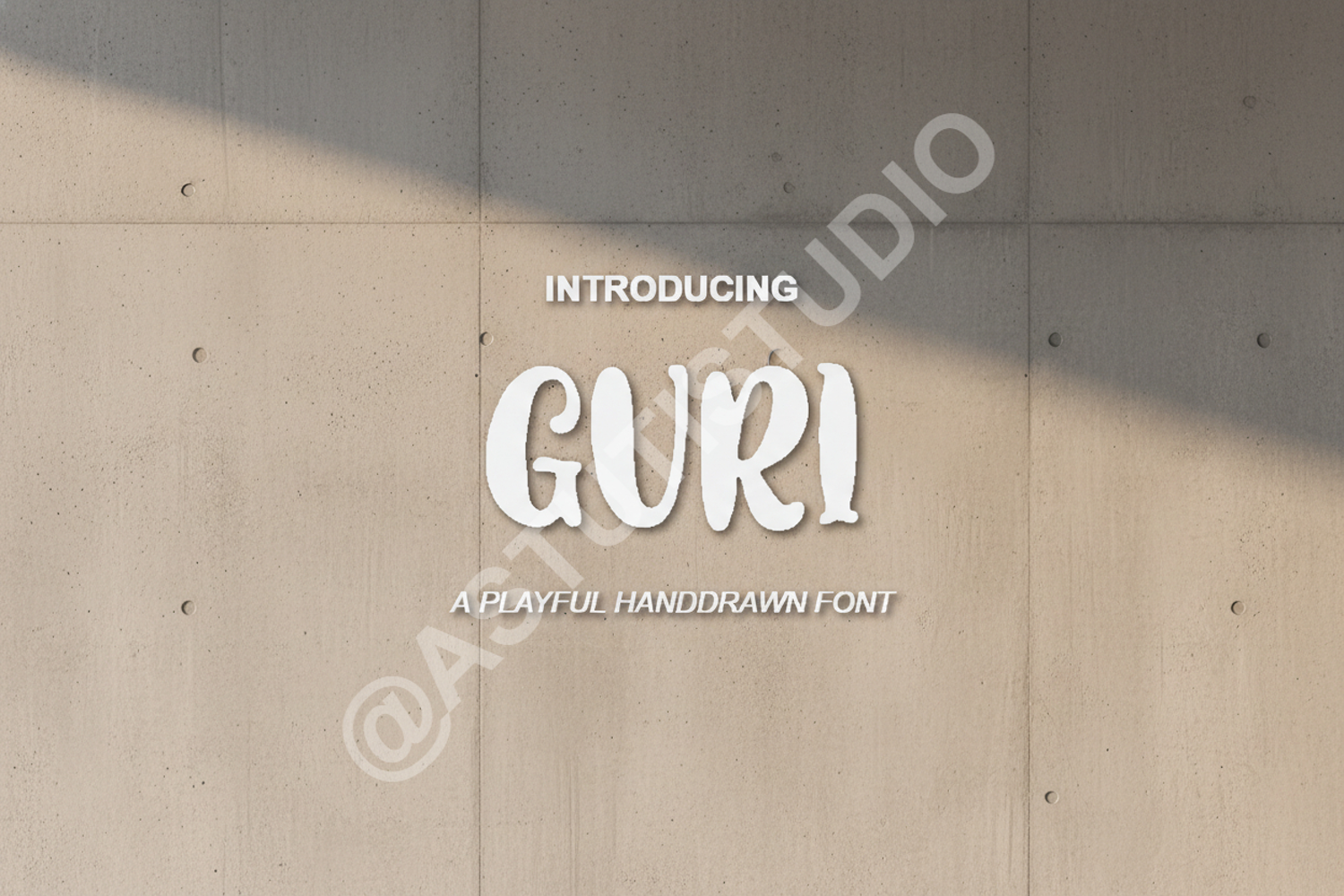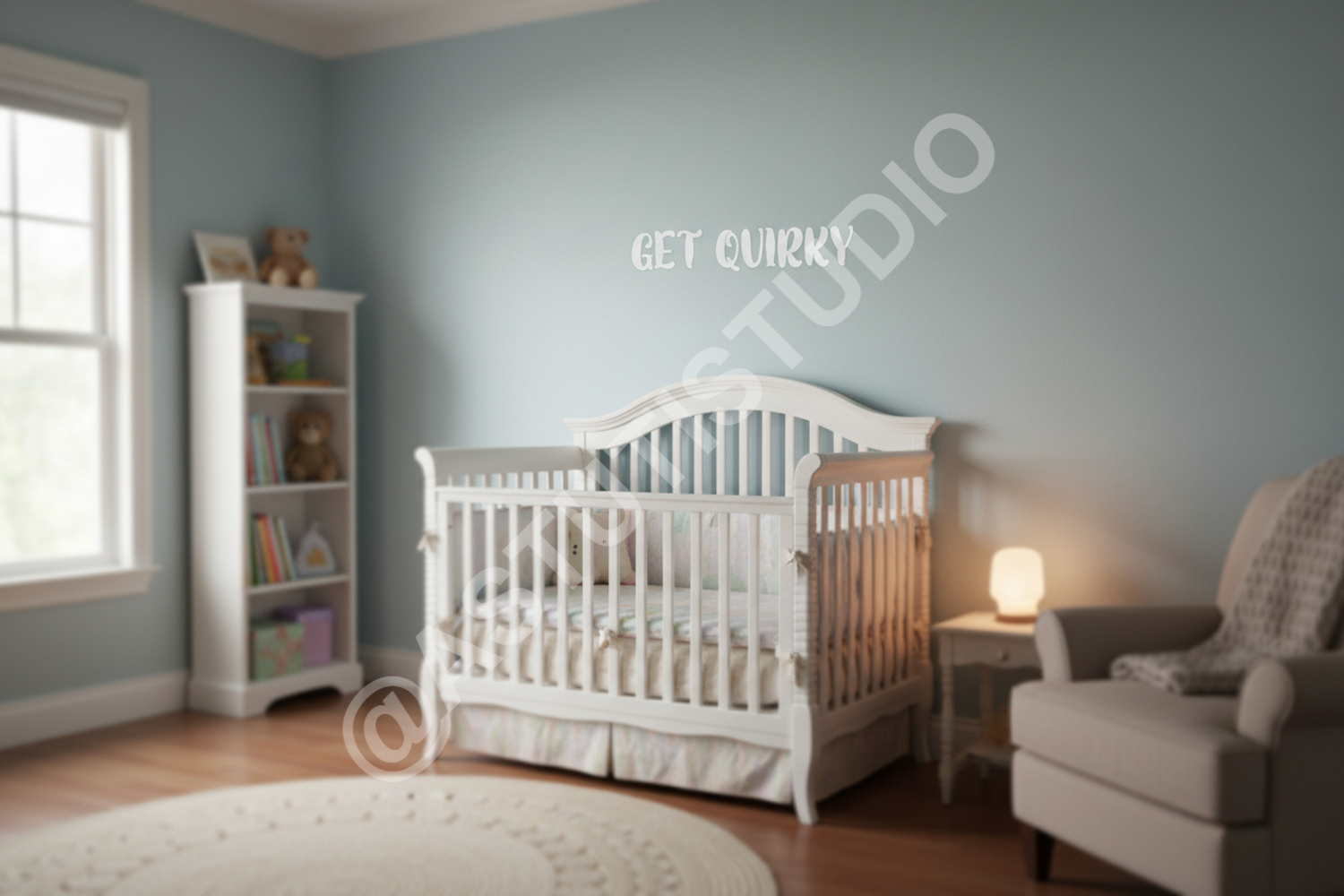
Guri - Modern Minimalist Display Font
Guri
Elevate your creative projects with Guri, a premium display font designed for modern aesthetics and timeless elegance. Guri blends clean lines with unique character shapes, making it a versatile choice for designers who demand both professional quality and distinct personality. Its balanced weight and sophisticated proportions ensure readability while maintaining a high-end visual impact.
- Complete set of uppercase and lowercase characters
- Comprehensive numbers, punctuation, and symbols
- Branding and Visual Identity: Create memorable logos and brand marks that stand out.
- Editorial Design: Perfect for magazine headings, pull quotes, and sophisticated layouts.
- Social Media: Design eye-catching Instagram posts and high-engagement Pinterest graphics.
- Wedding Invitations: Add a touch of modern class to stationery and event signage.
- Product Packaging: Enhance your physical goods with premium, clean typography.